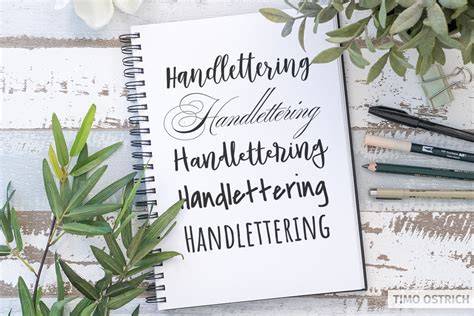
Handlettering Fonts: The Ultimate Guide For 2023
What is Handlettering?
Handlettering is a type of calligraphy that involves creating beautiful, unique lettering designs by hand. It’s a great way to add a personal touch to your designs, whether it’s for a logo, a social media post, or a book cover. Handlettering is a craft that takes time and patience to perfect, but it’s also very rewarding. In this guide, we’ll go over some of the basics of handlettering, including the different font styles and tips on creating your own handlettering designs.
Different Types of Handlettering Fonts
When it comes to handlettering, there are several different types of fonts that you can use. The most popular handlettering fonts are script, serif, sans serif, and display. Script fonts are often seen as the most elegant and whimsical of the handlettering fonts, as they often feature a slight slant or a more flowing style. Serif fonts are more traditional and often seen as the most classic of the handlettering fonts. Sans serif fonts are a bit more modern and often feature a cleaner, simpler look. Finally, display fonts are usually more experimental and are often used to create more unique lettering designs.
Tips for Creating Handlettering Designs
Creating a handlettering design is a lot like creating any other type of artwork. It takes time, practice, and patience to perfect. Here are some tips to help you get started:
- Start with a sketch. To get the most out of your design, it’s important to start with a sketch. This will help you visualize the end result and make sure that your design is just the way you want it.
- Choose your font carefully. As mentioned above, there are several different types of handlettering fonts to choose from. Be sure to pick one that fits the style of your design.
- Experiment with different tools. You can use a variety of different tools to create your handlettering designs, including pens, markers, brushes, and even digital tools like Adobe Illustrator.
- Practice, practice. Handlettering is a skill that takes time and practice to perfect. Don’t be discouraged if your first few designs don’t turn out the way you planned. Just keep practicing and you’ll soon be creating beautiful handlettering designs.
Examples of Handlettering Fonts
There are many different handlettering fonts available for you to use. Here are some examples of popular handlettering fonts:
- Kilburn: A script font with a classic, elegant look.
- Corene: A serif font with a traditional, classic look.
- Vinyl: A sans serif font with a modern, minimalist look.
- Bittersweet: A display font with a unique, creative look.
Handlettering is a great way to add a personal touch to your design projects. With a bit of practice and patience, you can create beautiful handlettering designs that will stand out from the crowd. Be sure to choose a font that fits the style of your design, and don’t be afraid to experiment with different tools and techniques. We hope this guide has given you some helpful tips for creating your own handlettering designs.